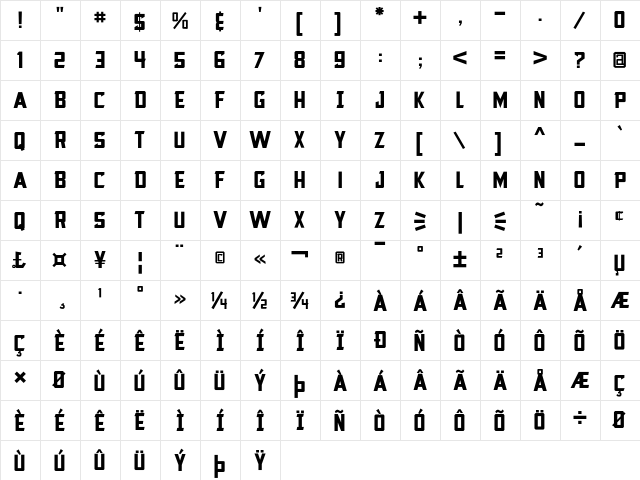
Blocktastic Regular
| Foundry | Jason L. Arthur |
| Designer | Jason L. Arthur |
Design Context for Blocktastic Typeface
Blocktastic offers clean, dependable letterforms without strong stylistic allegiance, making it a practical choice for designers who need flexibility.